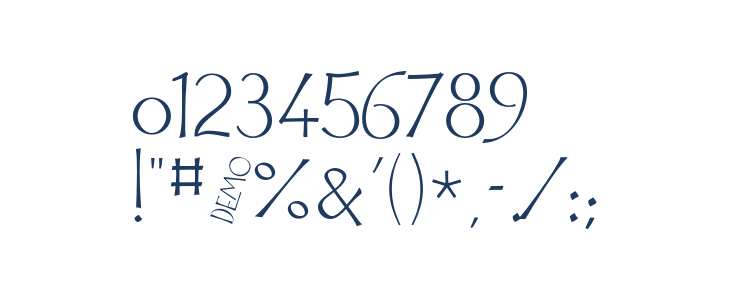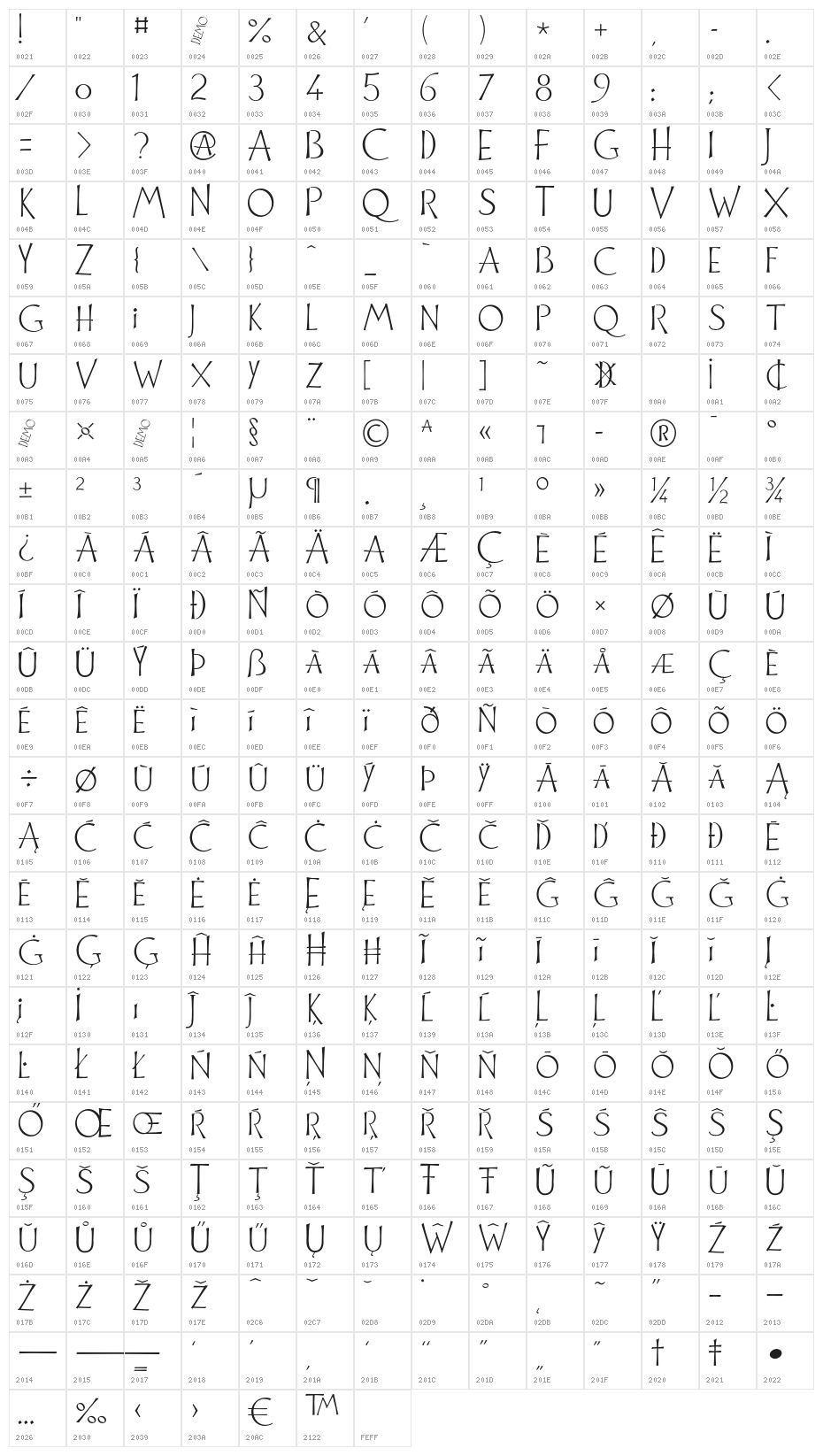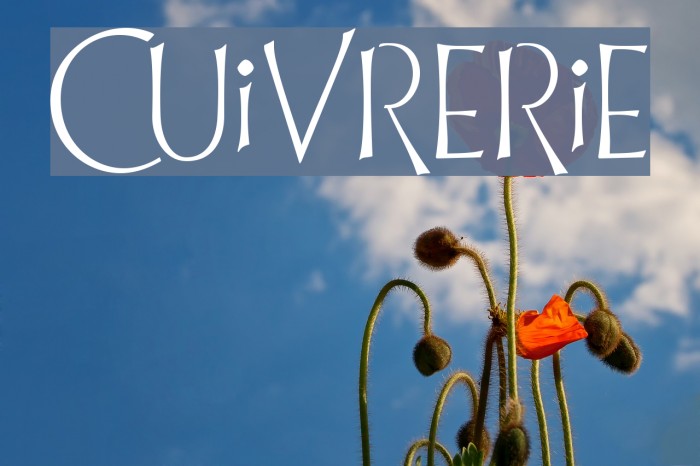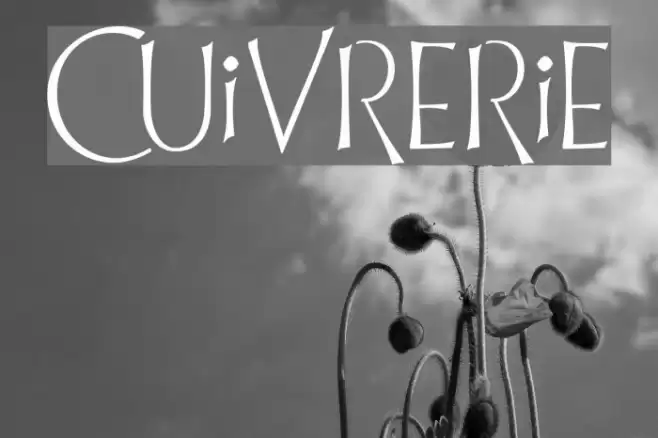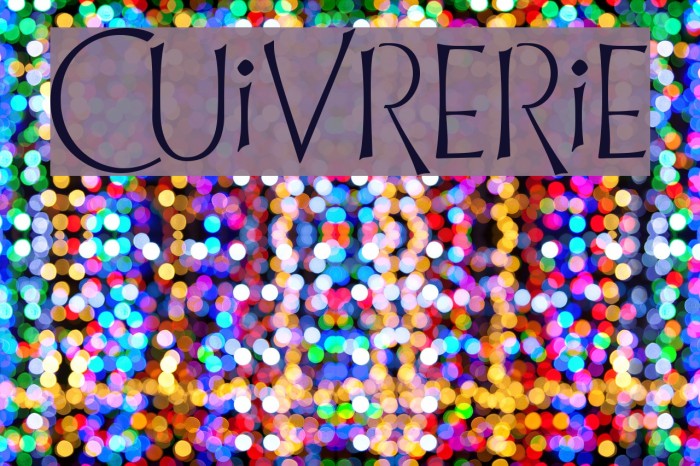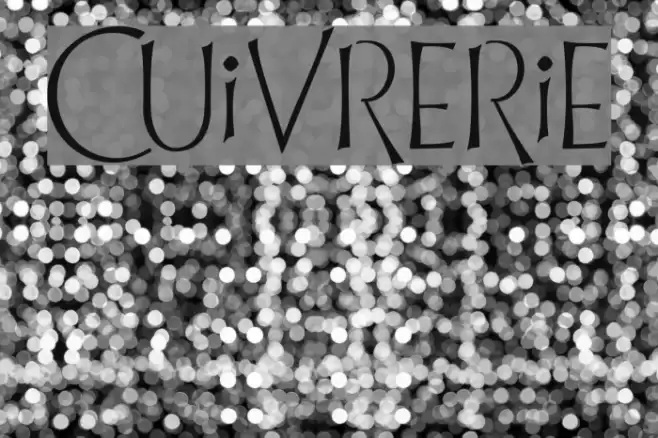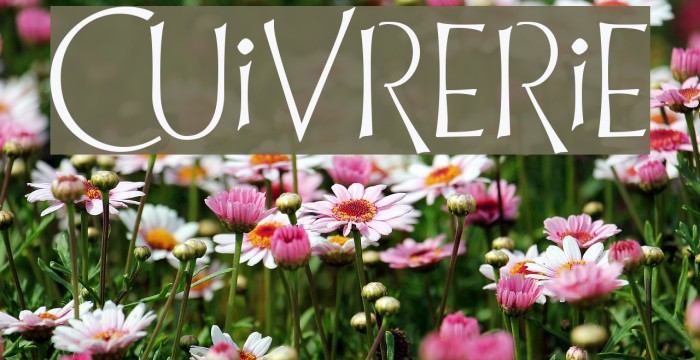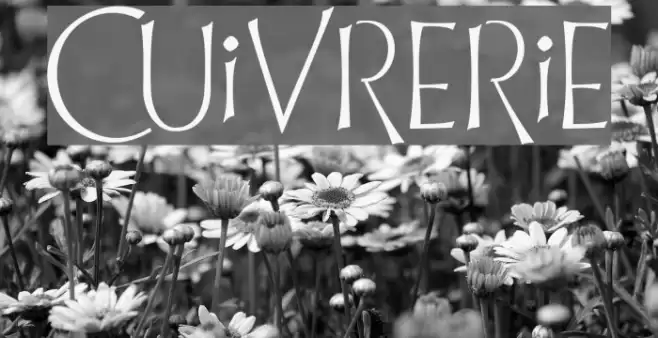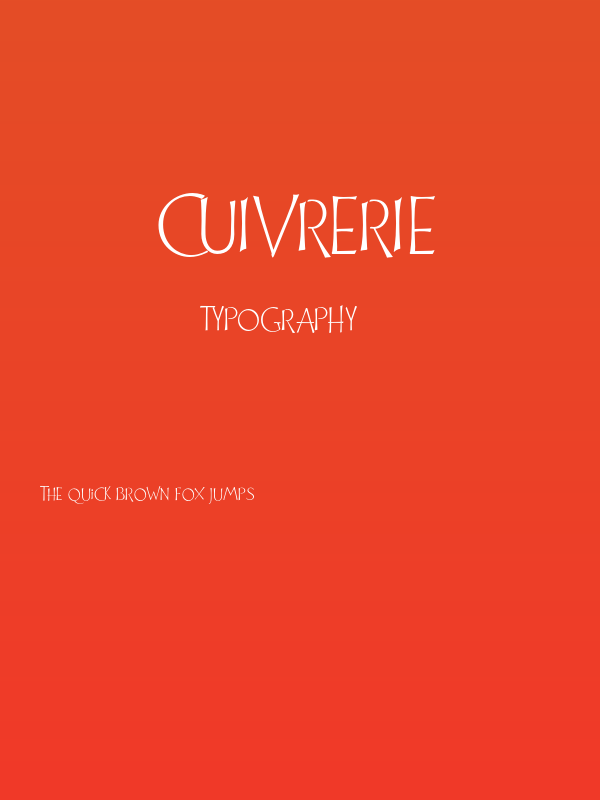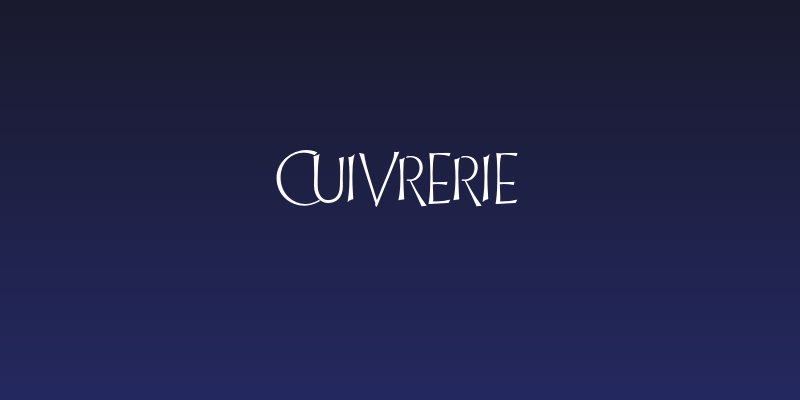
Cuivrerie Font
Cuivrerie Description
This font features a unique blend of elegance and playfulness, characterized by its tall, slender letterforms and subtle curves. The uppercase letters exhibit a distinct style with elongated verticals and slightly flared serifs, giving them a sophisticated yet approachable appearance. The lowercase letters maintain a consistent flow, with gentle curves and a slight slant that adds a touch of dynamism. The numerals are bold and clear, ensuring readability while maintaining the overall aesthetic. Special characters are thoughtfully designed, complementing the font's artistic flair. This font's distinctive style makes it ideal for creative projects that require a touch of elegance and individuality.
| Overall Style | Elegant, Artistic |
| Proposed Projects | Ideal for wedding invitations, branding, logo design, and artistic posters. |